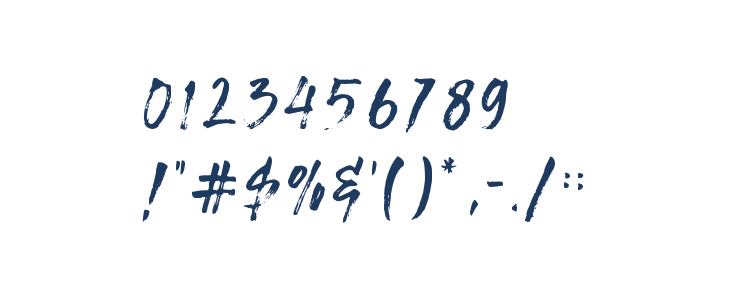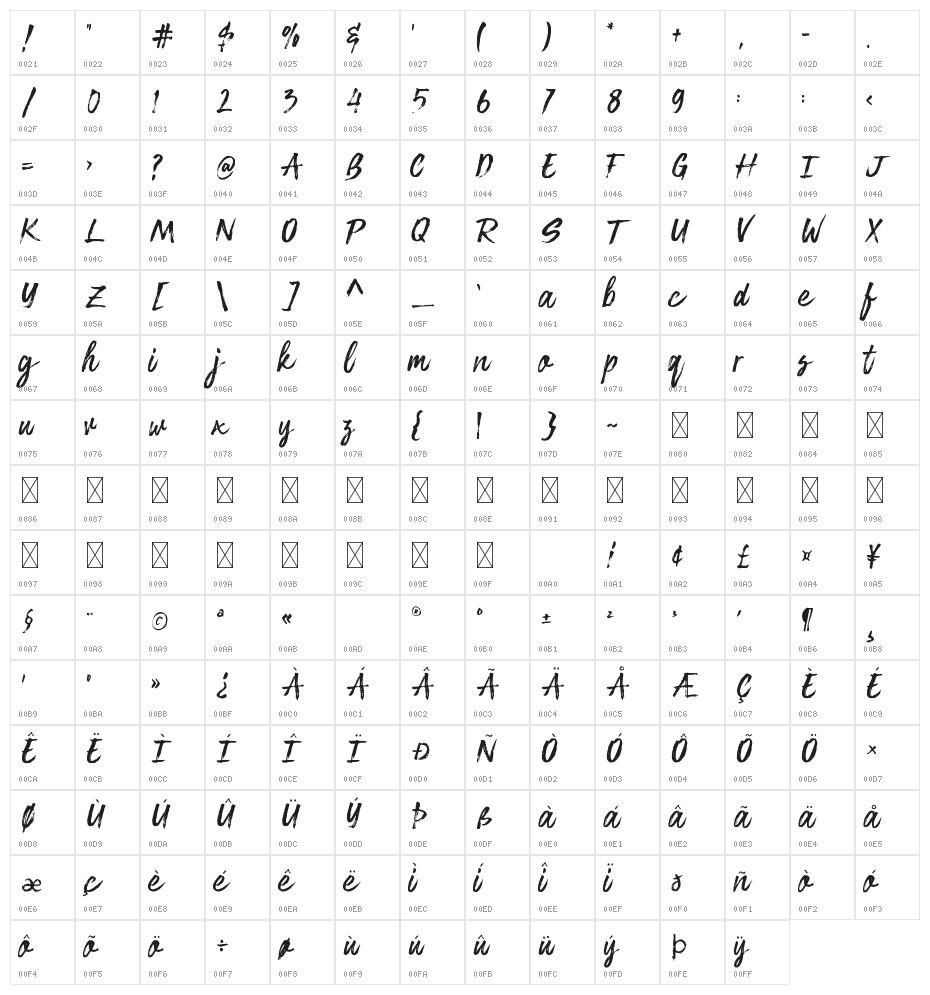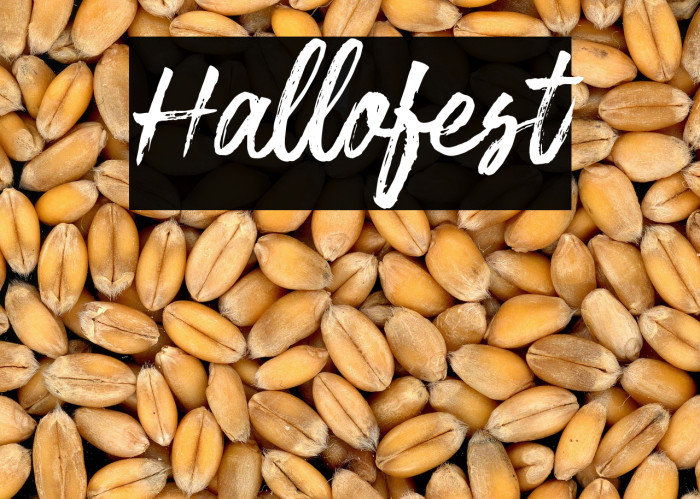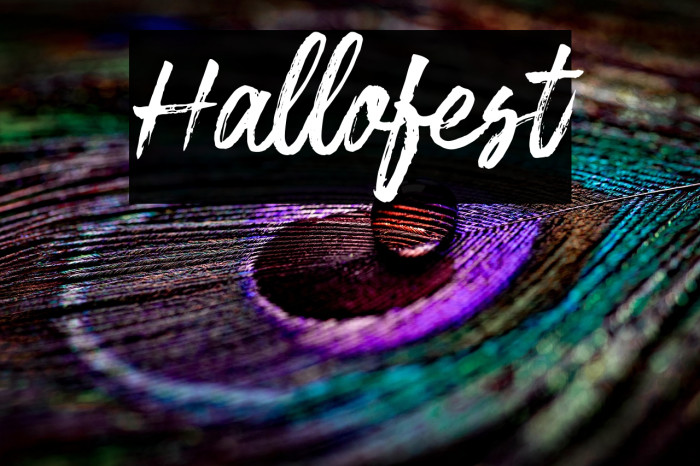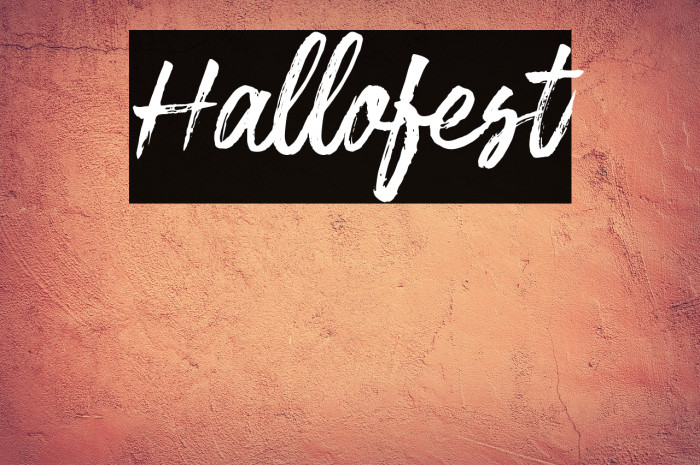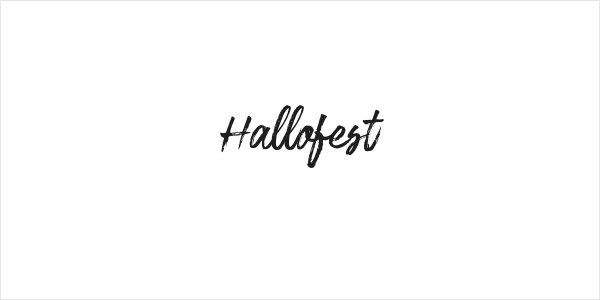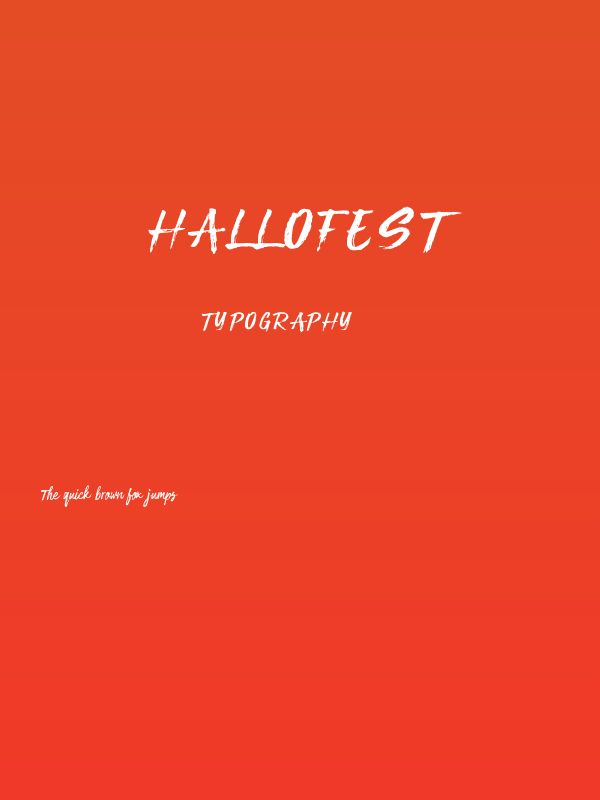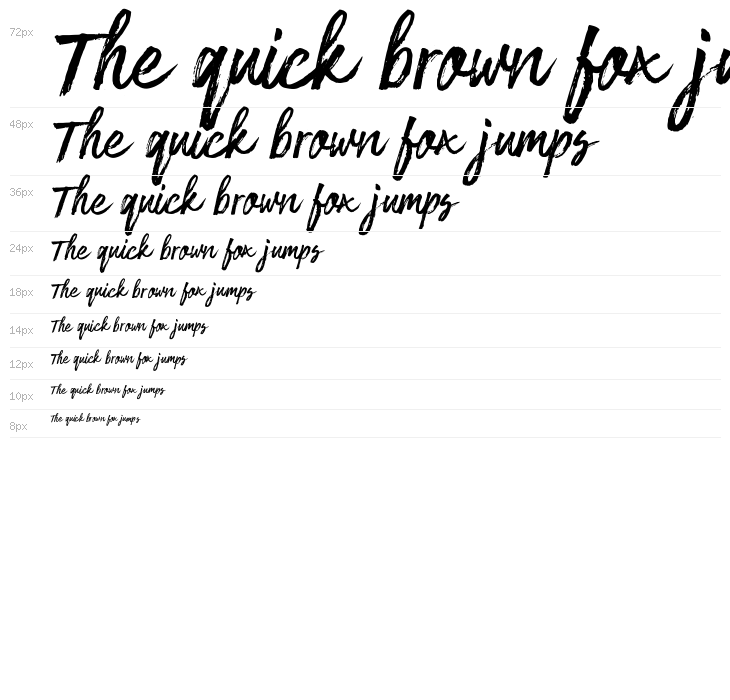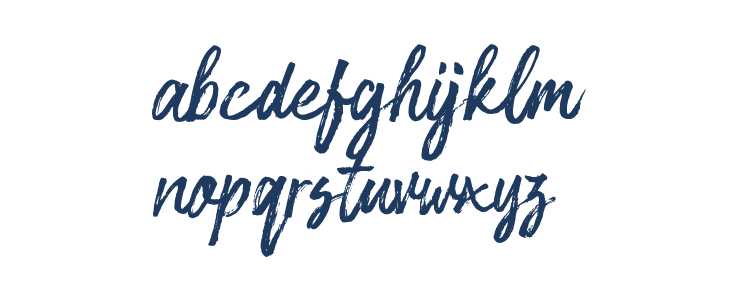
Hallofest Font
Hallofest Description
This font exudes a bold and expressive style, characterized by its brush-like strokes and dynamic flow. The letters have a hand-painted appearance, with varying thicknesses that add a sense of movement and energy. The uppercase and lowercase letters maintain a consistent style, while the numbers and special characters integrate seamlessly with the overall design. The font's rough edges and irregularities give it a raw, artistic feel, making it ideal for projects that require a personal touch or a creative flair.